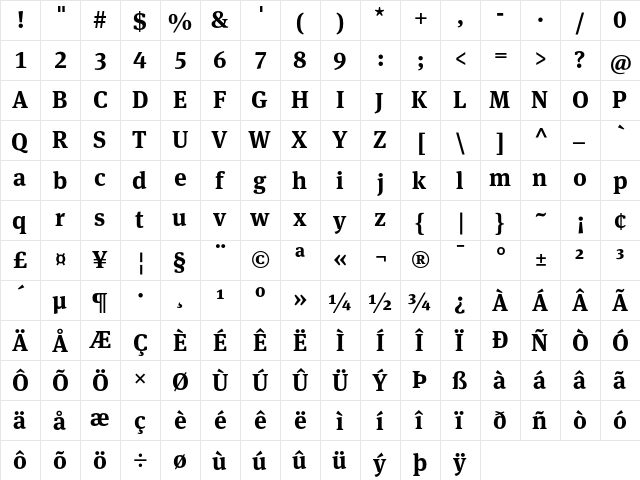
MetaSerifTf-Bold Regular
Design Context for MetaSerifTf-Bold Typeface
MetaSerifTf-Bold carries the refined structure of traditional serif typography, with bracketed terminals and considered proportions that communicate credibility and craft. The heavy weight commands attention and anchors typographic hierarchies.
Pro Tip: Use MetaSerifTf-Bold for editorial body copy and considered headline work. Pair with a neutral sans for UI elements or captions to create a classic hierarchy.